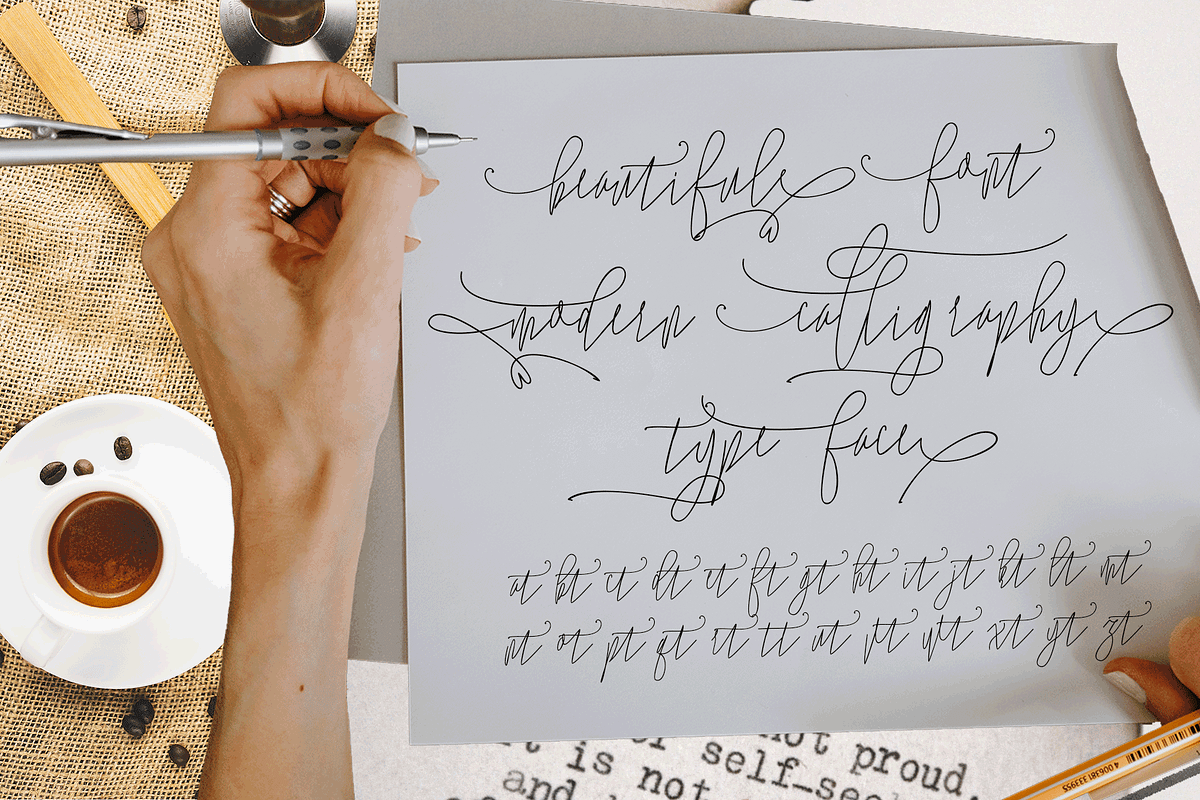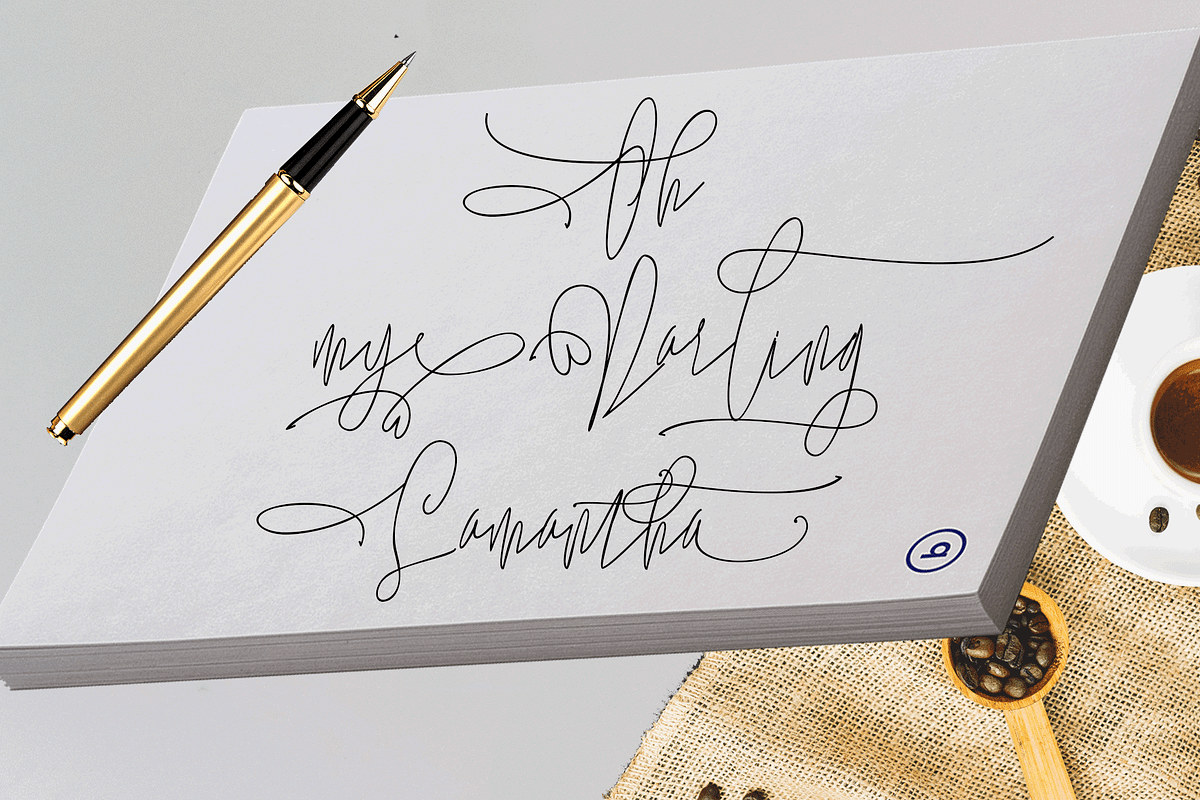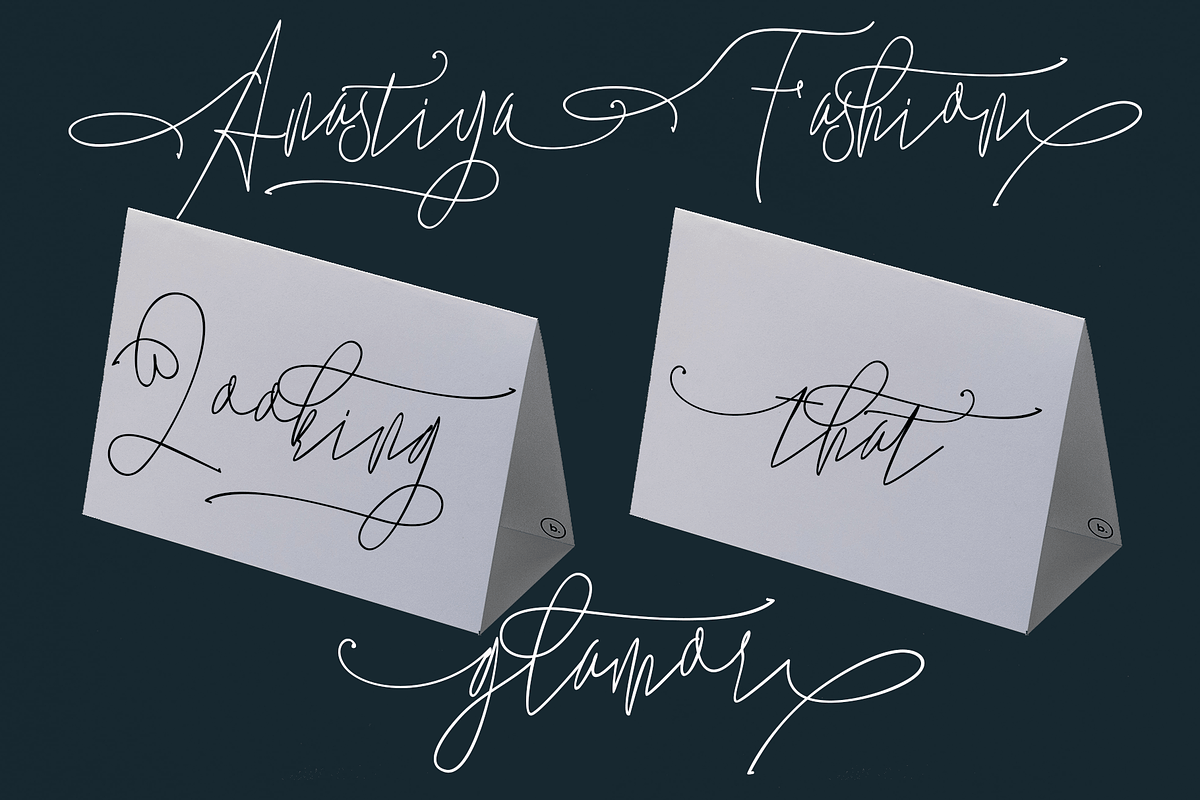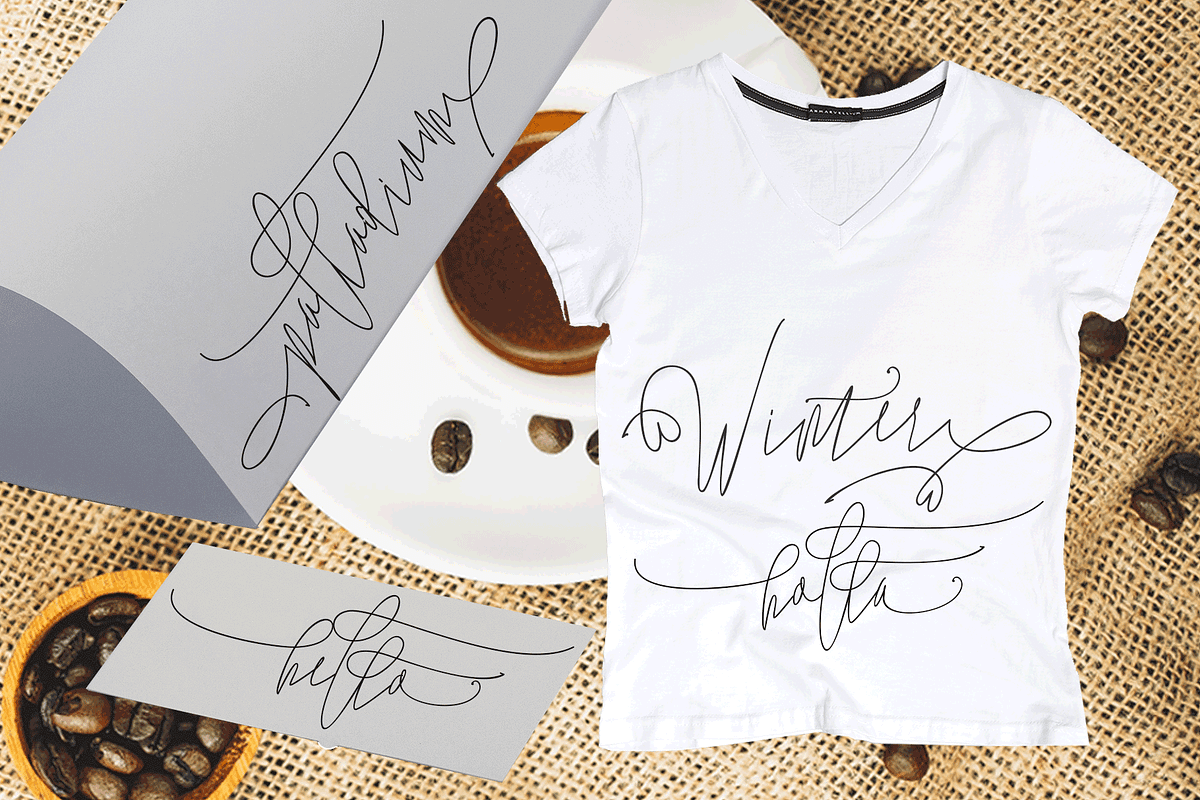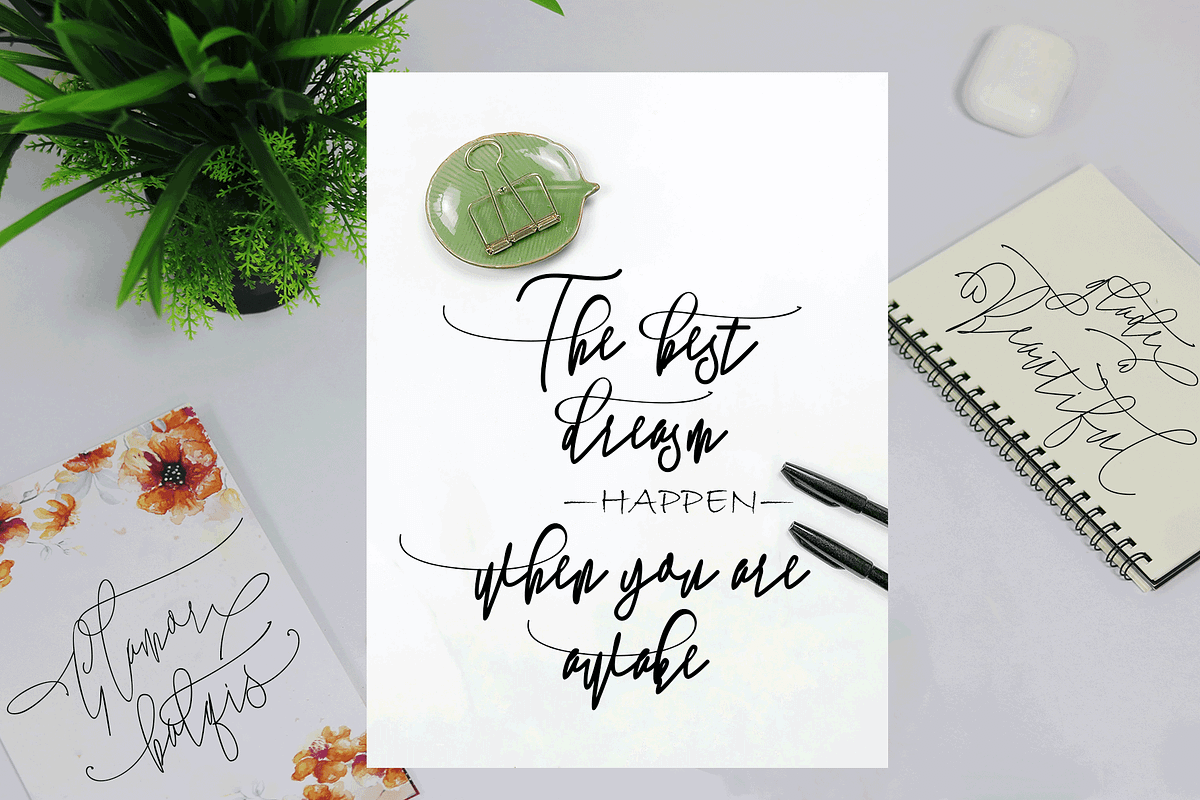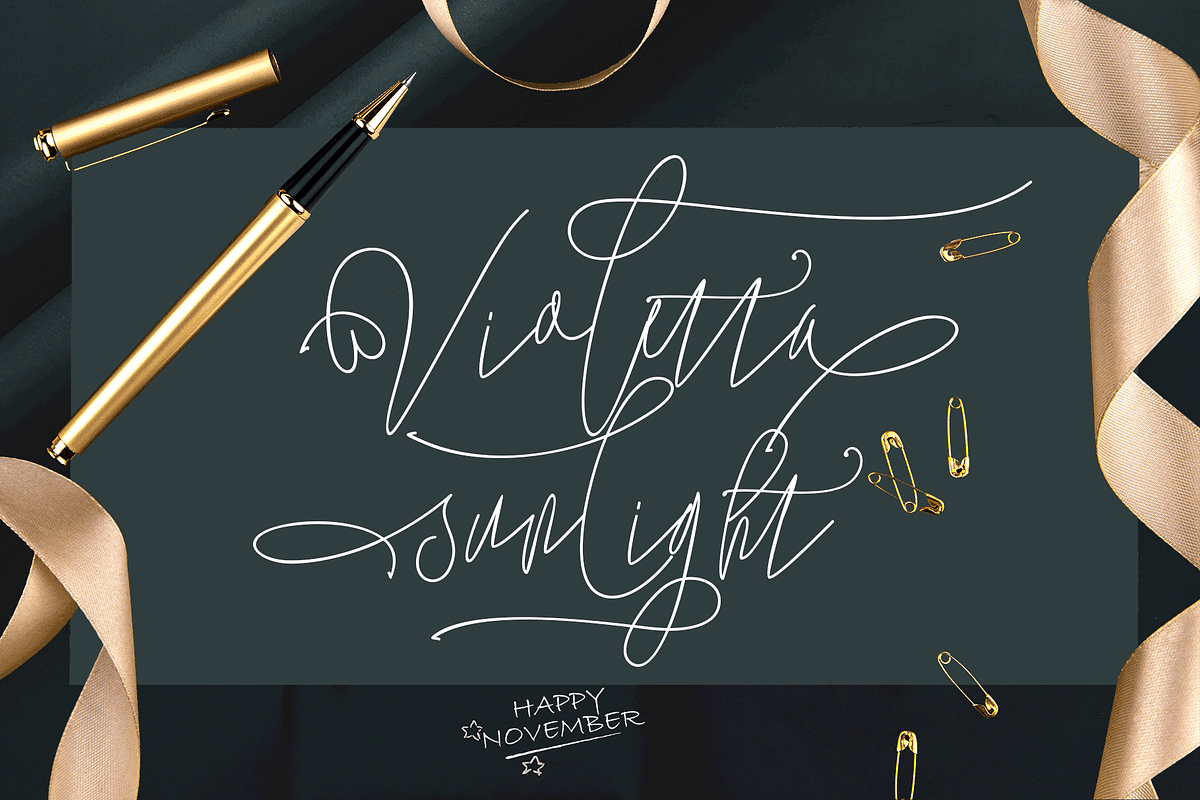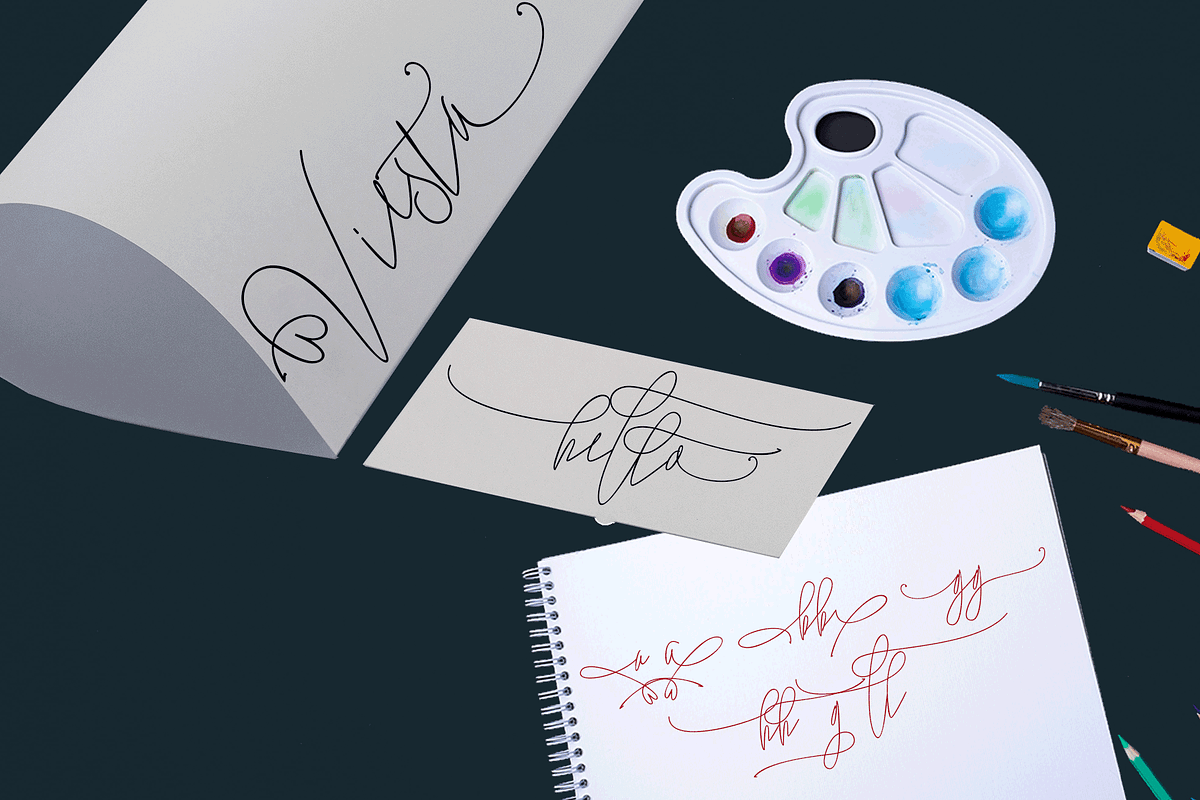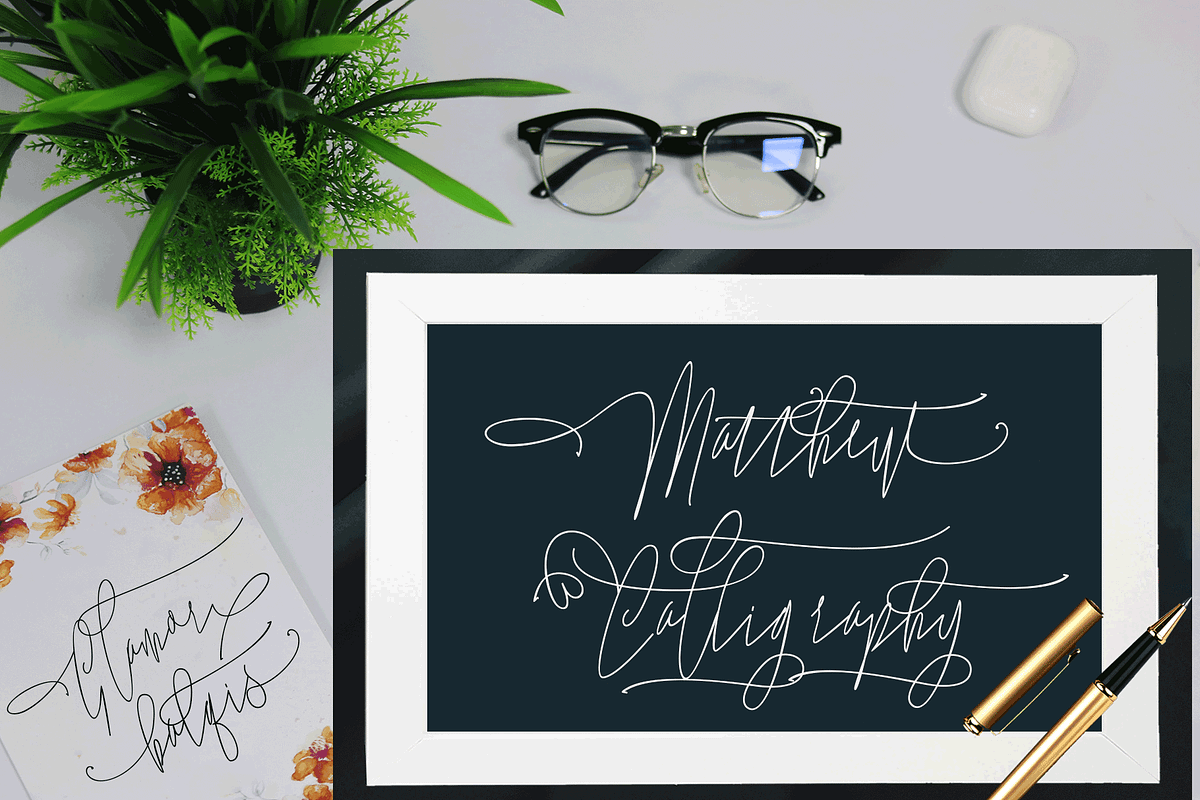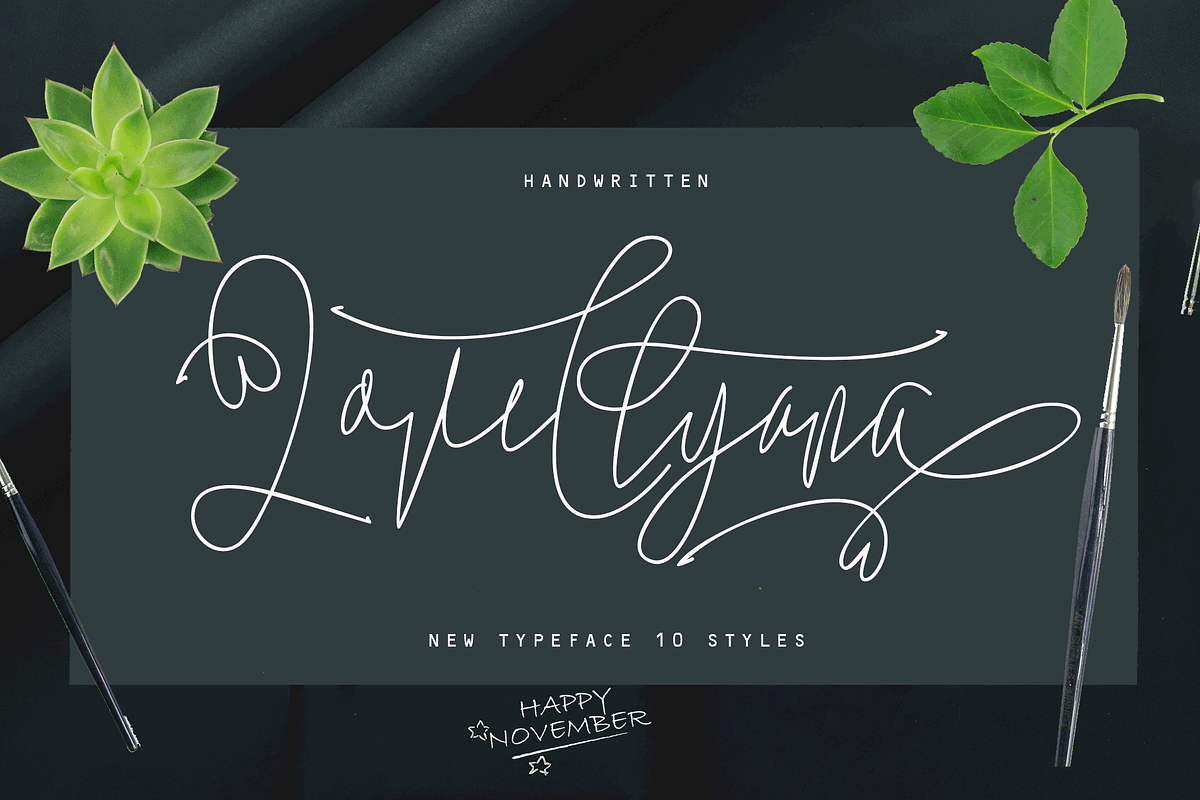
Lovellyana comes with 10 Elegant
Lovellyana 10 styles for a work that is purely handwritten, has natural characteristics. this is perfect for invitations, signatures, blogs, social media, business cards, product brands. The Lovellyana font is a simple and classy font, comes with various Elegant Variations, open type features such as style alternatives, initial and final shapes, and ligatures. We keep this font looking elegant, classy, easy to read, stylish, attractive and easy to use. Main Features:
Titling Alternate Stylistic Alternate Contextual Alternate Ligatures Discretionary ligature Contextual ligature Swash Variant Initial Form Medial Form Terminal Form
The variety of Lovellyana will make you smile and happy. Just choose the variation you like best. WITHOUT DOUBT ! . If those variations don't touch your heart, we will add more variations in future updates :)